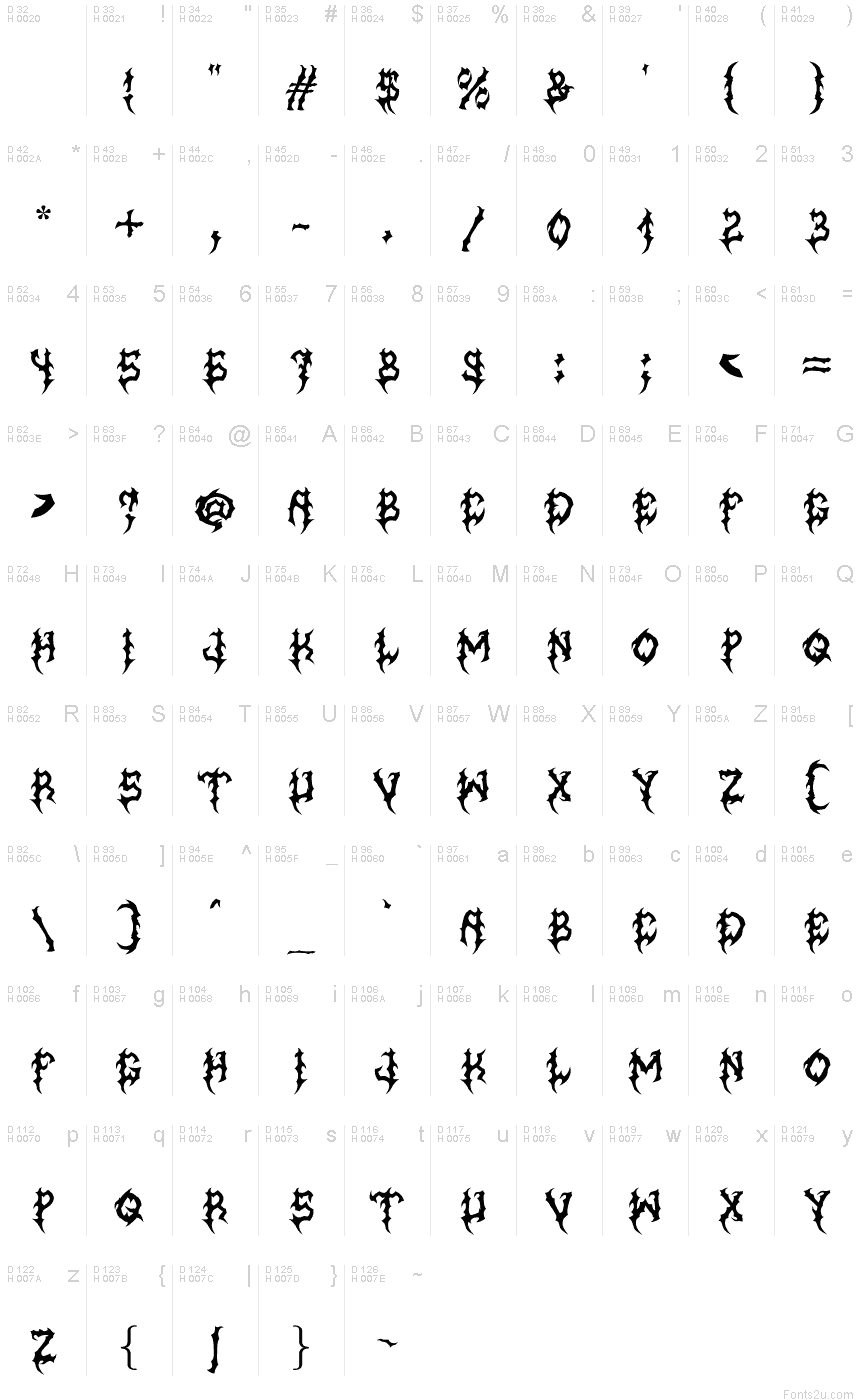
MB-Graveyard_Designs
MB-Graveyard Designs by ModBlackmoon is a free gothic display font with blackletter roots and a distinctly extreme-metal edge. Jagged hooks and flame-like cuts shape its dense, aggressive letters.
It is especially convincing on concert posters, where the thorny silhouette can become part of the band's visual world rather than ordinary titling. The same dark ornament suits horror-game graphics and band merchandise, and on magazine covers it can turn a feature heading into a rough, illustrated emblem.